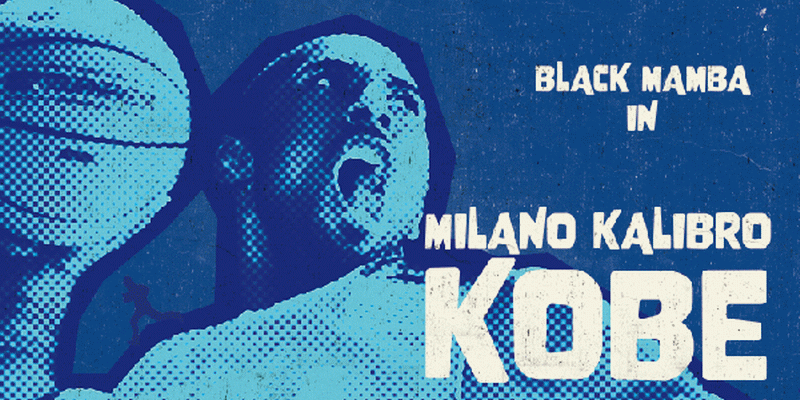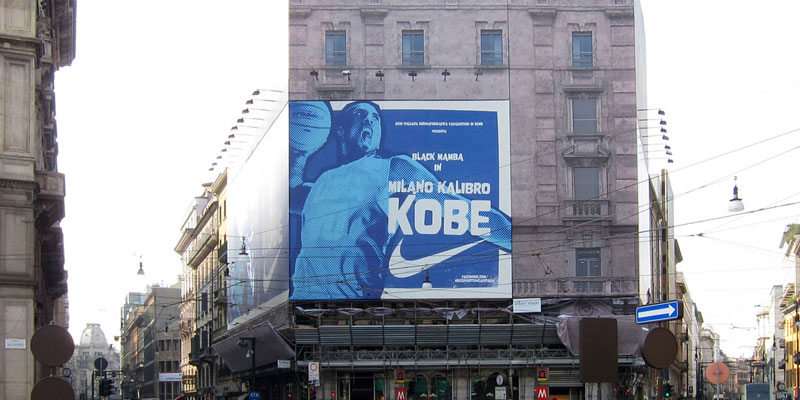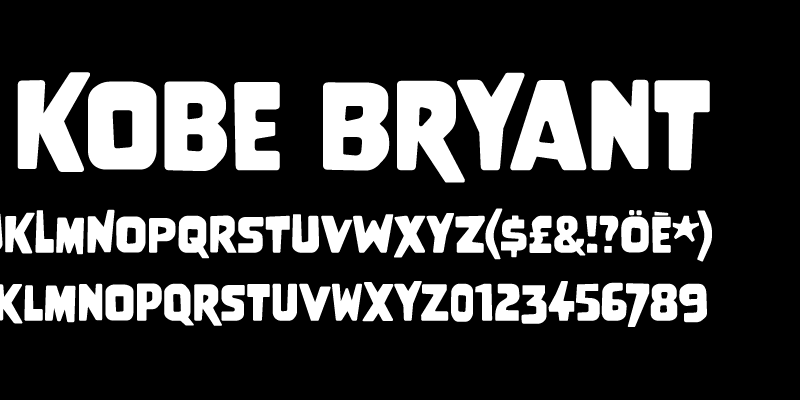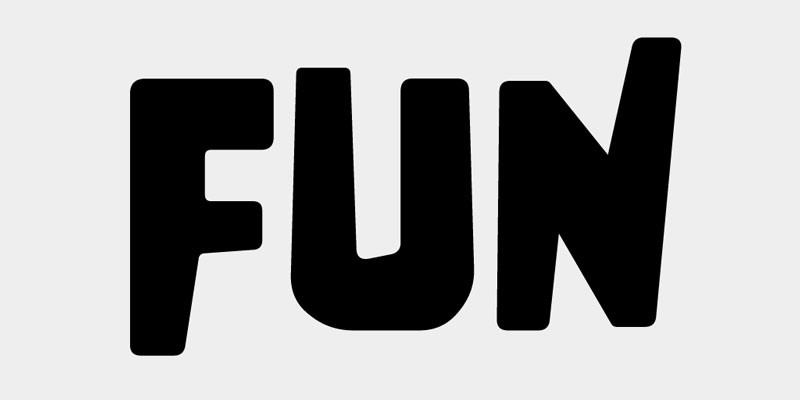
Nove
Designed by Fabrizio Schiavi, Nove is a display sans font family published by FSD.
Designed for Milano Kalibro Kobe a 2011 Nike advertising campaign, Nove is a geometric font inspired by b-movie typography